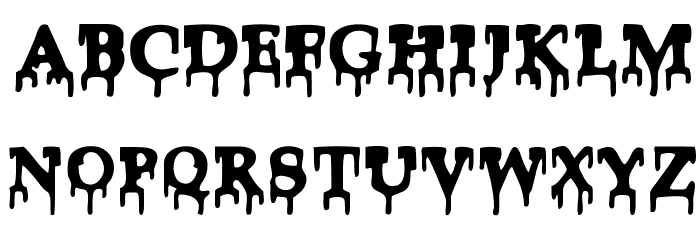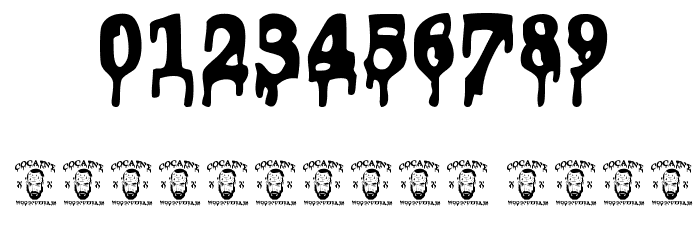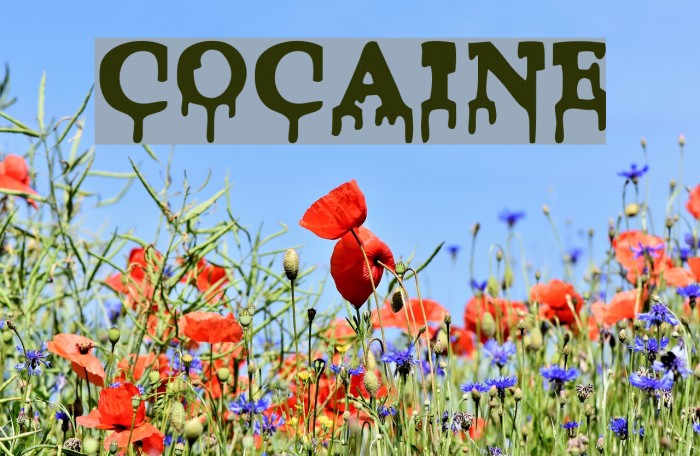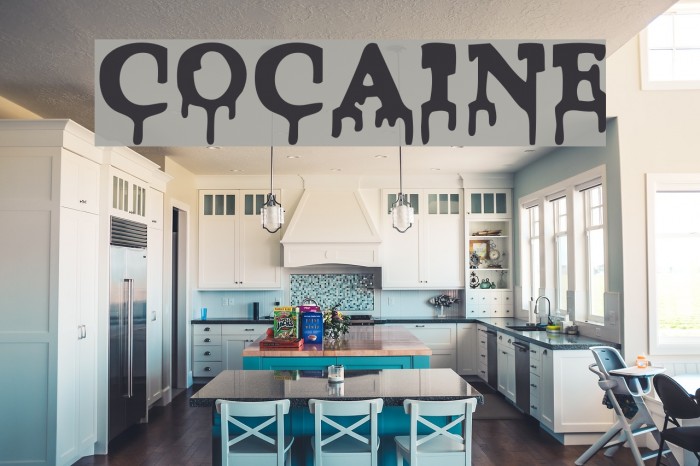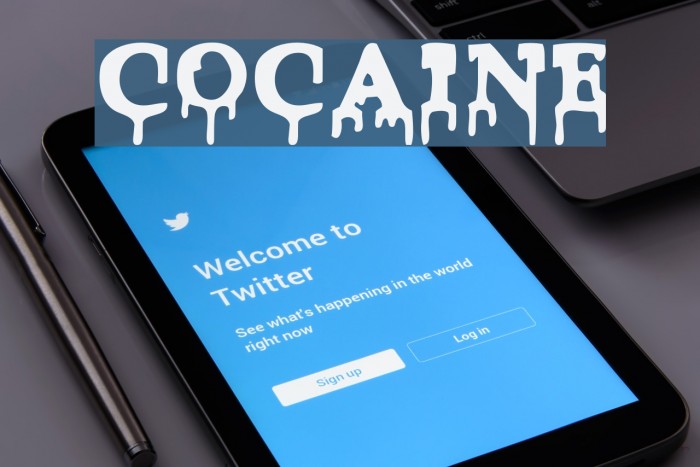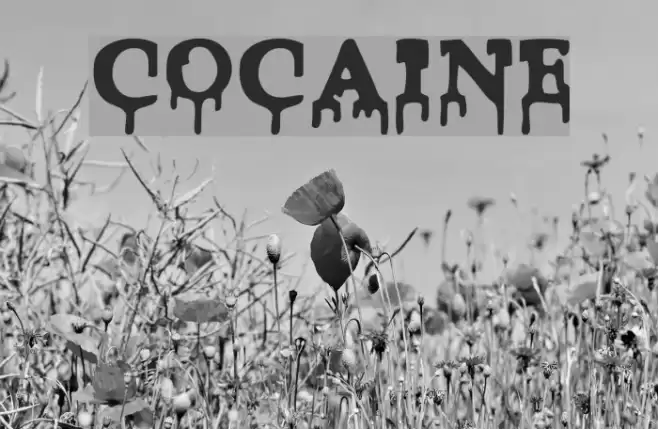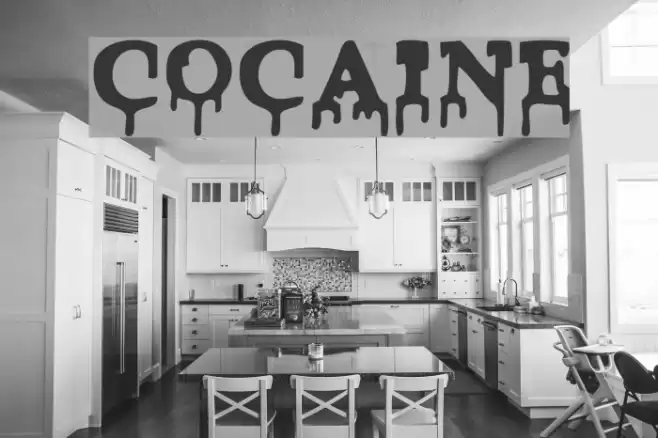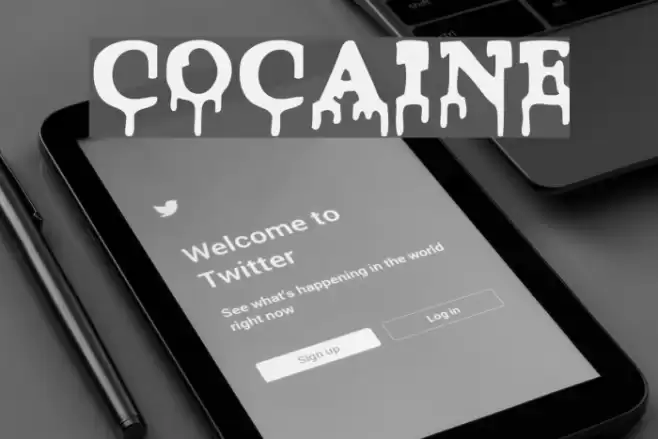
Cocaine Font
This font features a unique and bold design with a dripping effect that gives it a distinctive, edgy appearance. The characters are thick and heavy, with a playful yet slightly ominous style that resembles melting or dripping liquid. This effect is consistent across all letters and numbers, creating a cohesive and eye-catching look. The font is highly decorative, making it ideal for projects that require a strong visual impact. Its boldness and distinctive style make it unsuitable for body text but perfect for headlines or thematic designs.
A bold, dripping effect font with a unique, edgy style.
- Proposed Projects: Ideal for Halloween-themed designs, horror movie posters, edgy branding, or any project requiring a dramatic and eye-catching font.